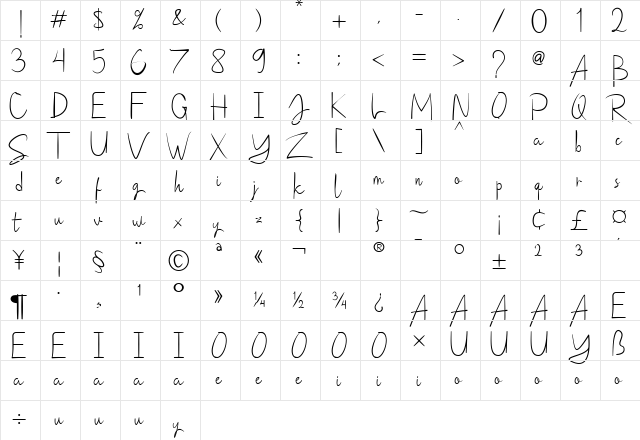
Saithik Regular
| Foundry | Embun Studio |
| Designer | Aditya Rezki Apriyadi |
Saithik is a composed and adaptable typeface that performs quietly and consistently across a wide range of design contexts.